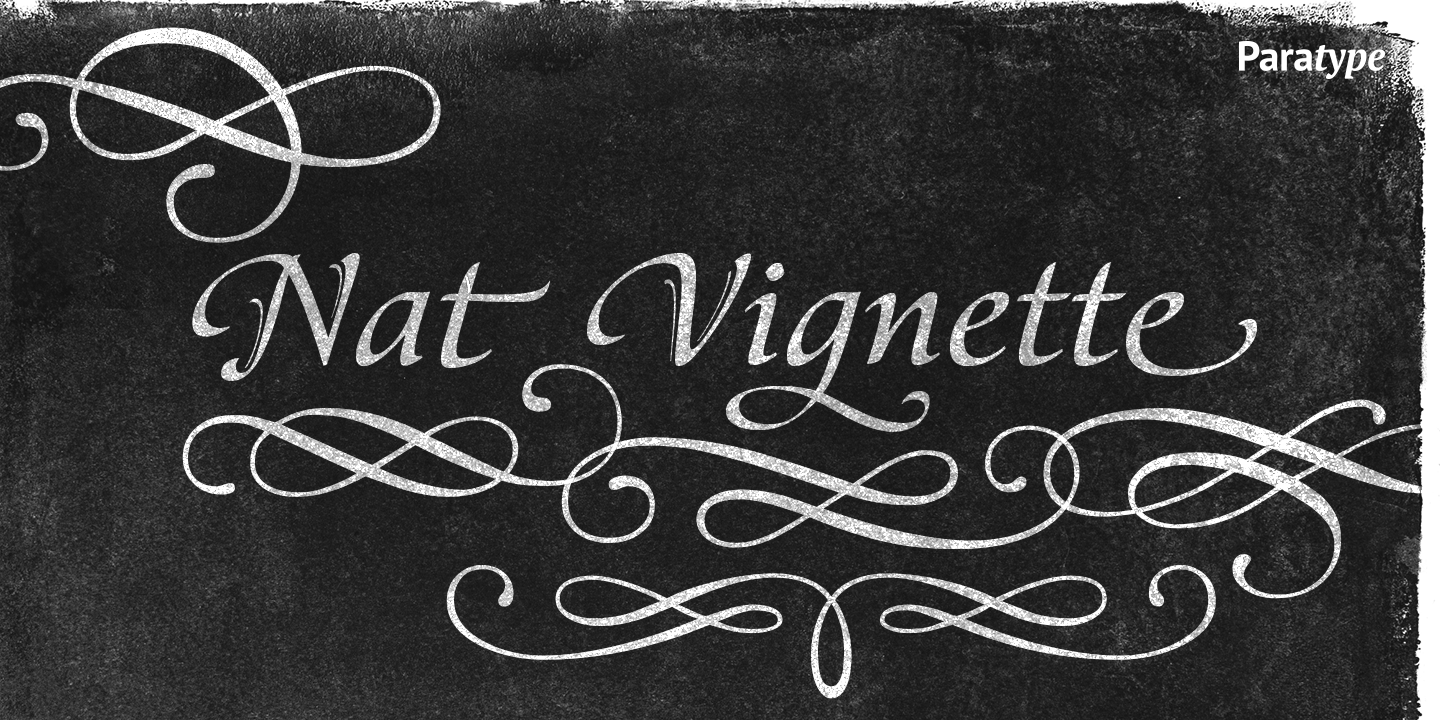
Nat Vignette Font is perfect for vintage photography studios, antique shop branding, nostalgic greeting cards, retro-style magazines, classic literature covers, heritage museum materials, artisanal craft labels, and romantic wedding stationery requiring timeless elegance.
What makes Nat Vignette Font exciting is its enchanting vintage charm that captures the romantic nostalgia of bygone eras through delicately crafted letterforms. This captivating typeface features subtle ornamental details and gentle curves reminiscent of classic hand-lettered signage and vintage photography, creating an immediate sense of warmth and sentimental beauty that transports viewers to more graceful times in history.
The Nat Vignette Font family includes regular and decorative weights, plus ornamental elements and vintage-inspired ligatures that enhance the nostalgic aesthetic with period-appropriate styling and romantic flourishes for heritage applications.
This charming typeface delivers exceptional vintage appeal and romantic elegance, making Nat Vignette Font Free Download an essential resource for nostalgic and heritage-themed design projects. The font's romantic character makes it ideal for brands wanting to evoke sentiment and timeless beauty in their communications. Antique dealers and vintage wedding planners particularly value its ability to communicate authentic period charm and romantic sophistication instantly. The lovingly designed letterforms ensure readability while preserving the delicate beauty of vintage craftsmanship across all applications from intimate love letters to elegant storefront signage. Whether you're creating materials for historical societies or developing branding for vintage-inspired boutiques, this font provides the perfect combination of nostalgic authenticity and commercial appeal. Creative professionals consistently choose this typeface for projects requiring that ideal harmony between historical romance and contemporary design standards, making it invaluable for communications that celebrate both sentimental value and timeless aesthetic beauty in today's fast-paced digital world.